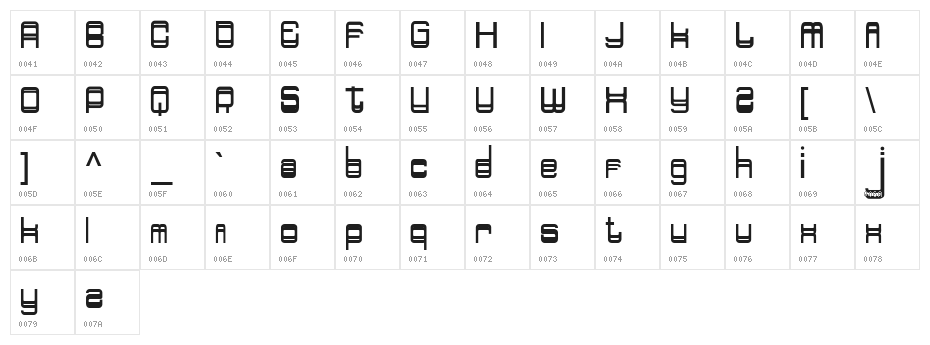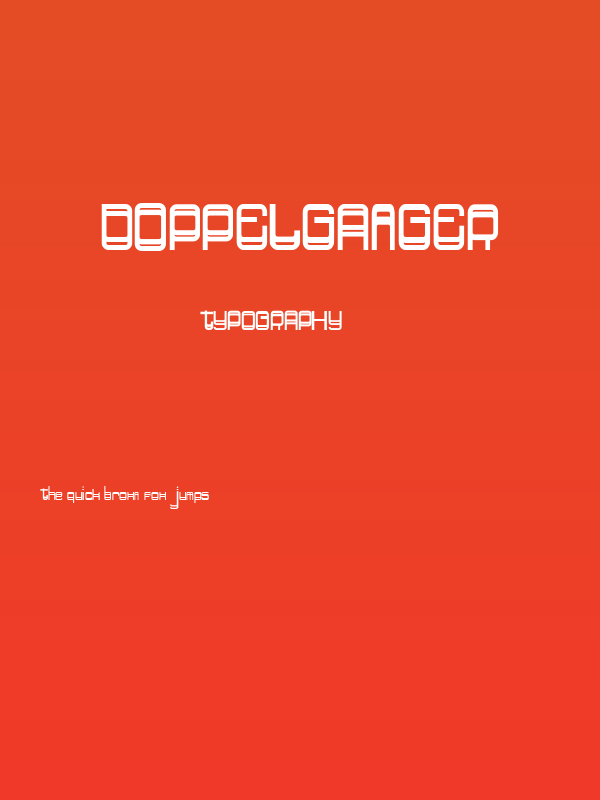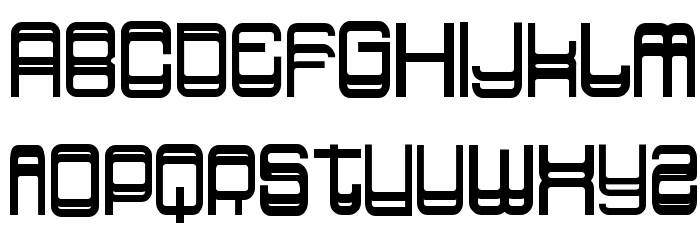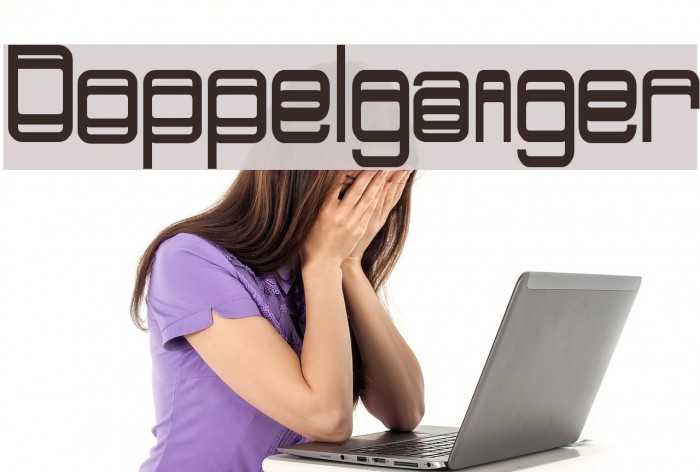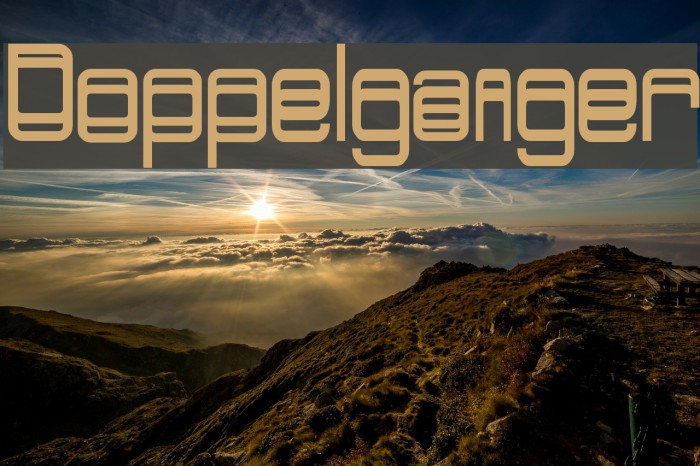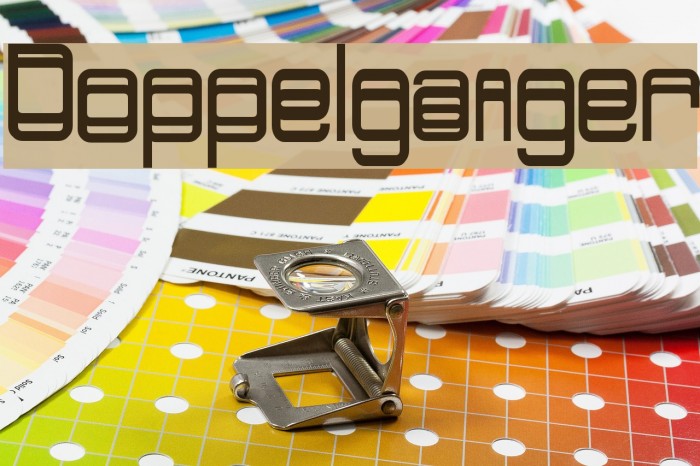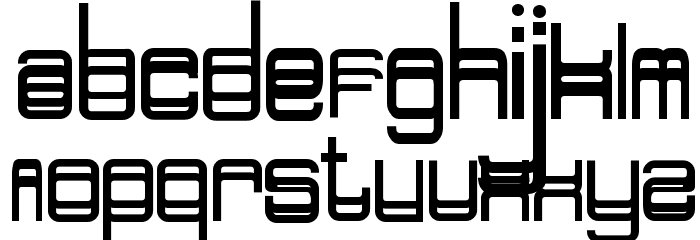
Doppelganger Font
Doppelganger Description
This font features a modern, geometric design with a unique blend of rounded and angular elements. The characters are constructed with a consistent stroke width, giving it a uniform appearance. The uppercase letters have a futuristic feel, while the lowercase letters maintain a playful yet structured look. The font includes a full set of uppercase and lowercase letters, numbers, and a selection of special characters. Its clean lines and distinct style make it suitable for a variety of design applications.
| Proposed Projects | Ideal for branding, posters, digital interfaces, and any project requiring a modern, sleek aesthetic. |